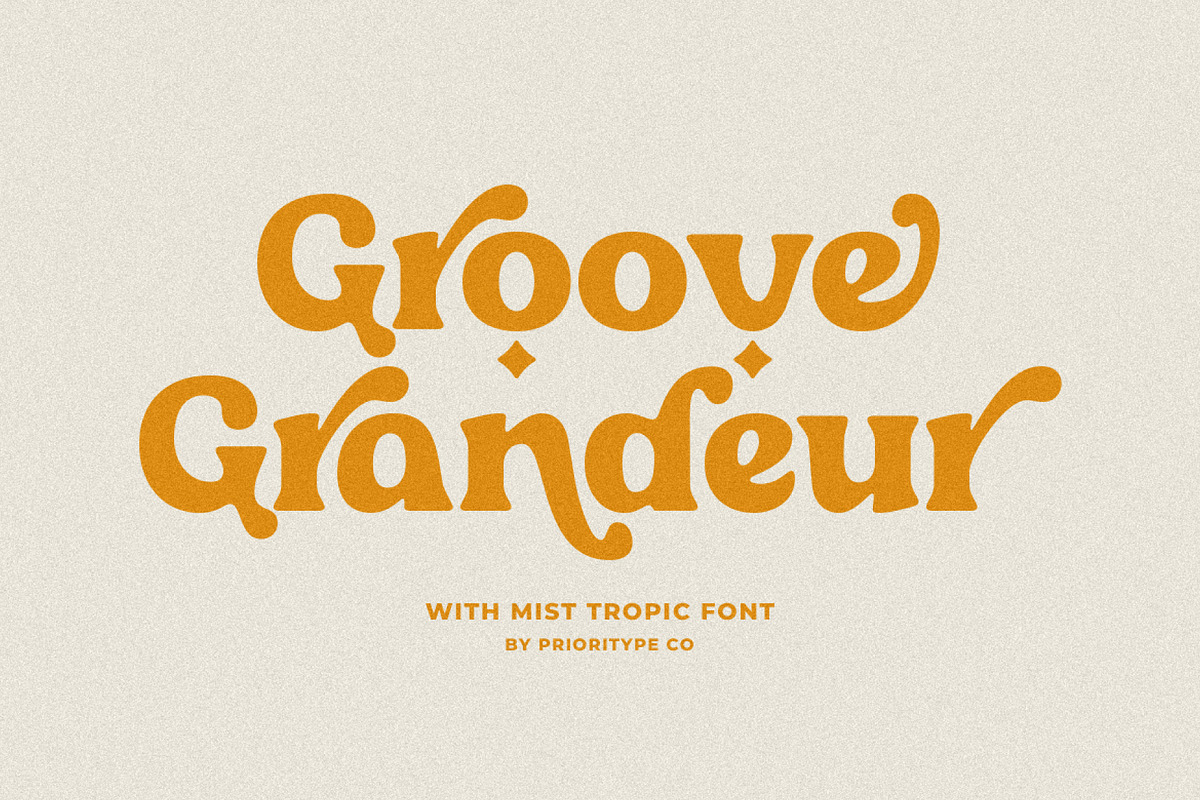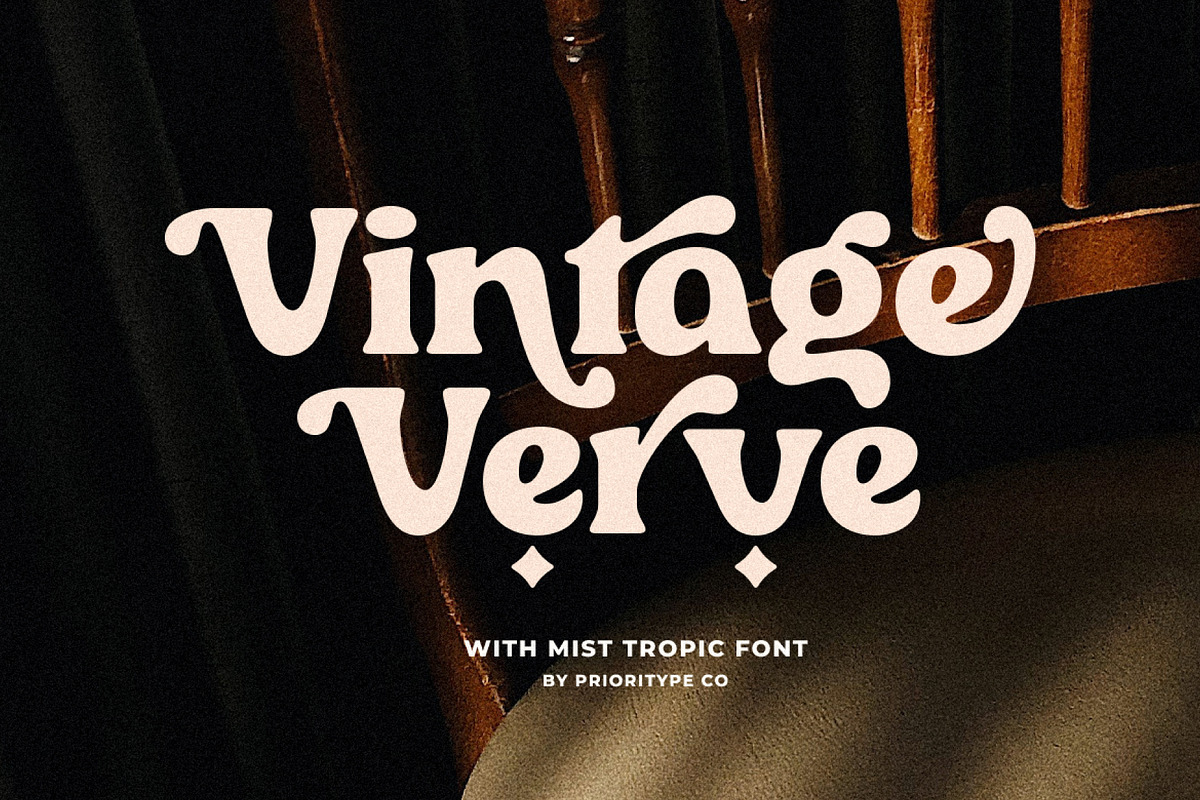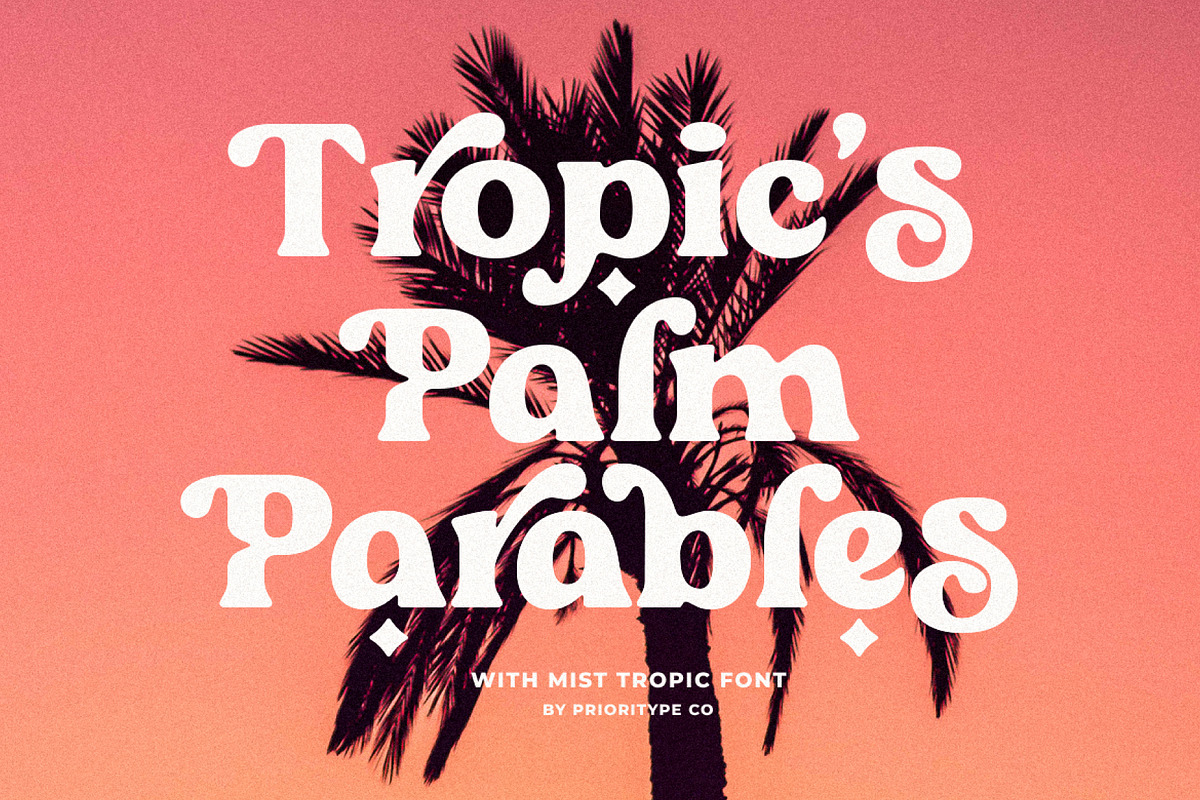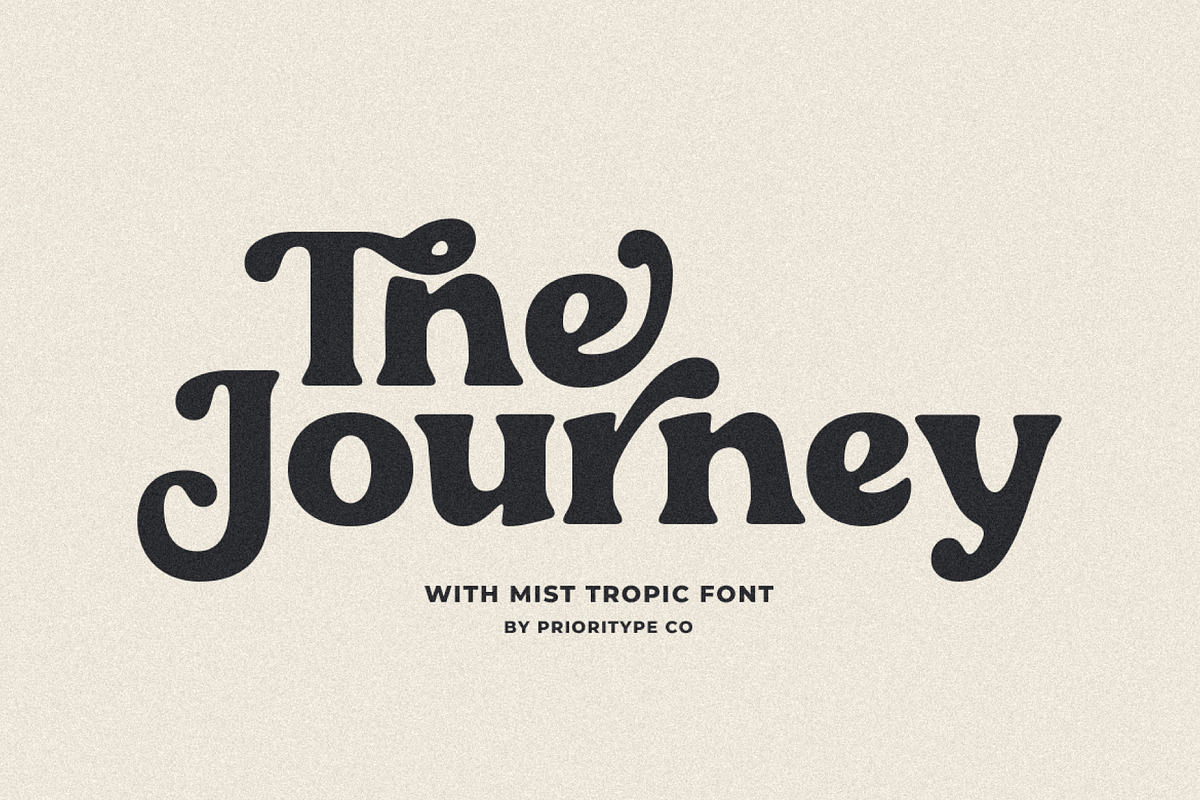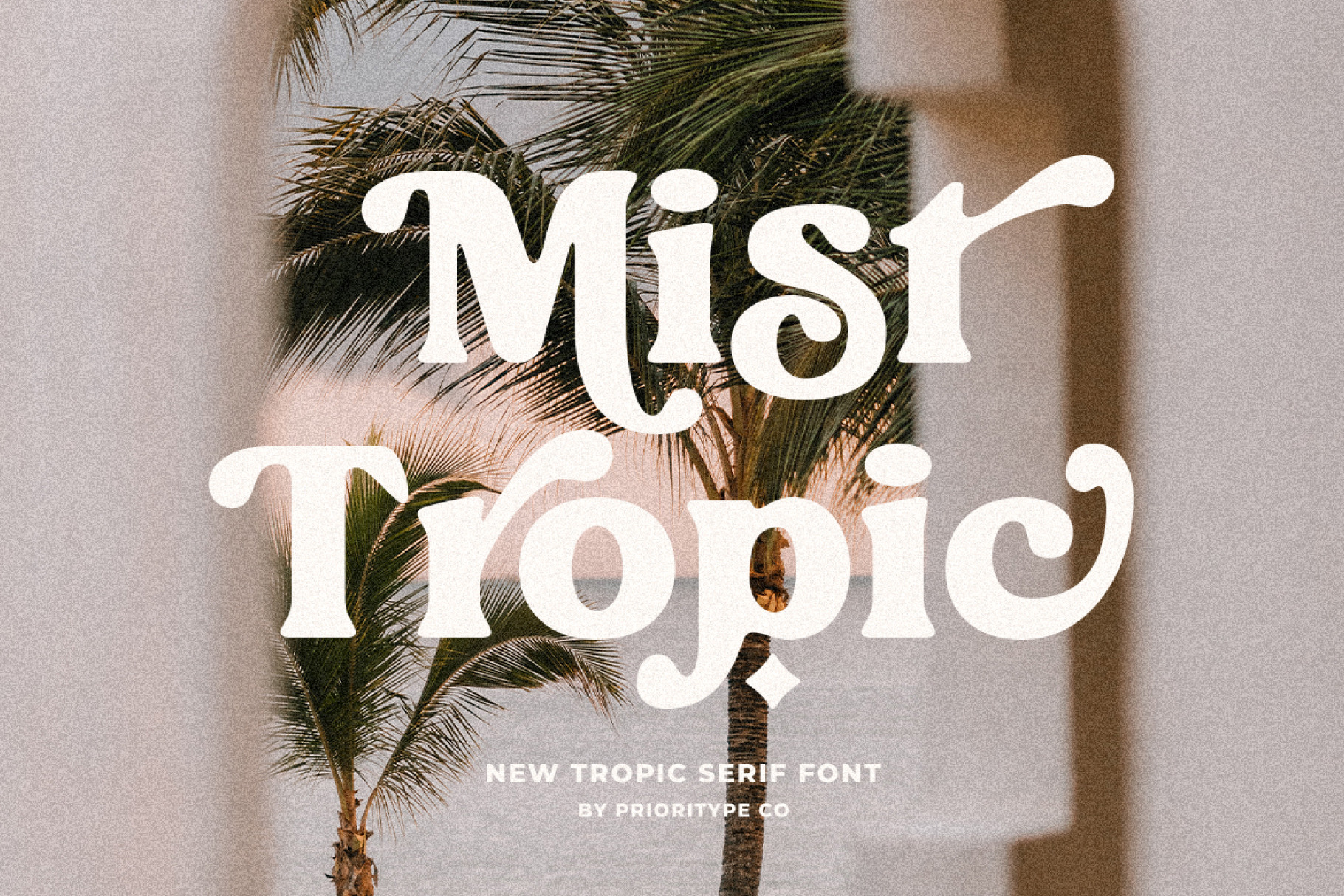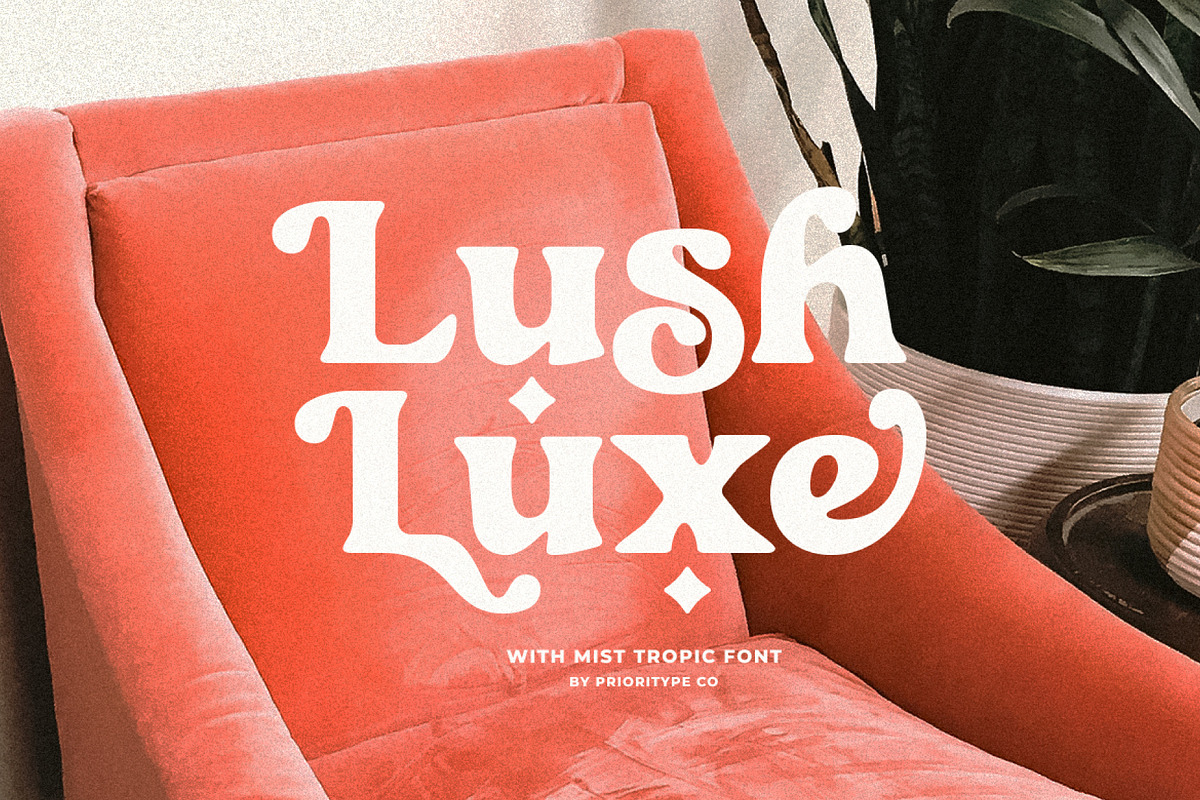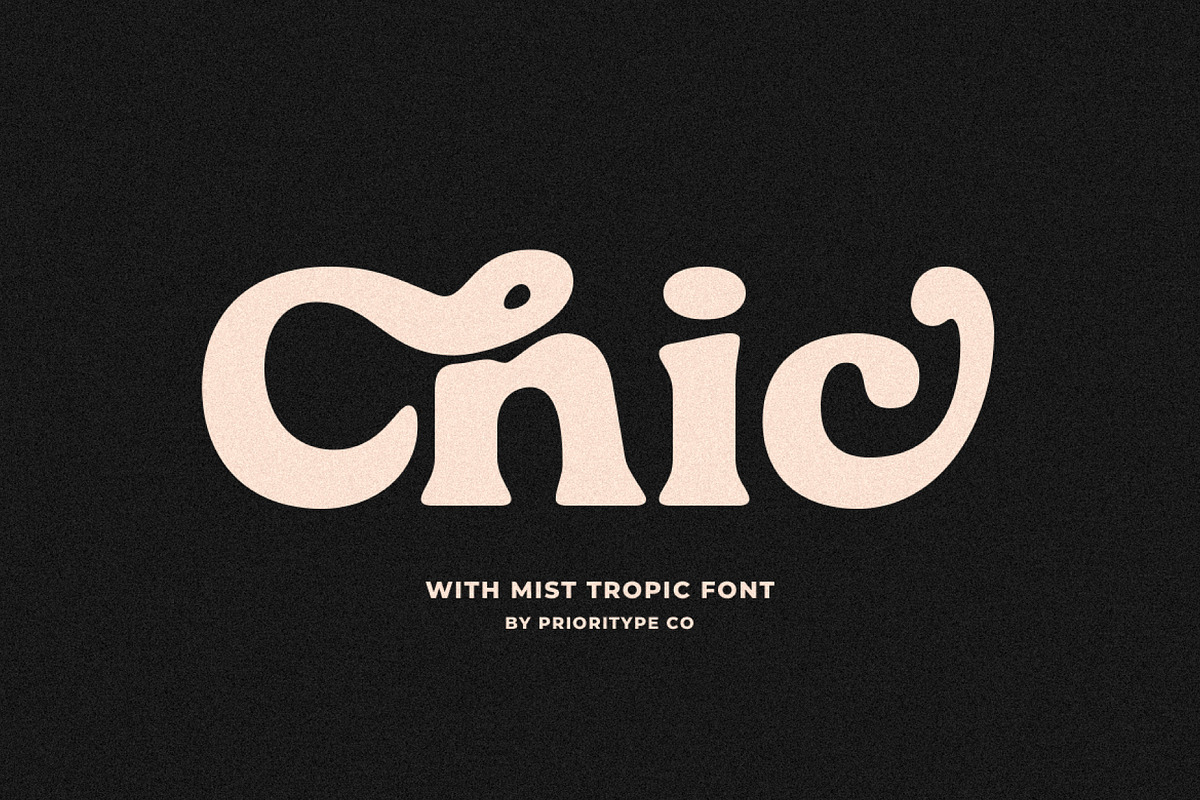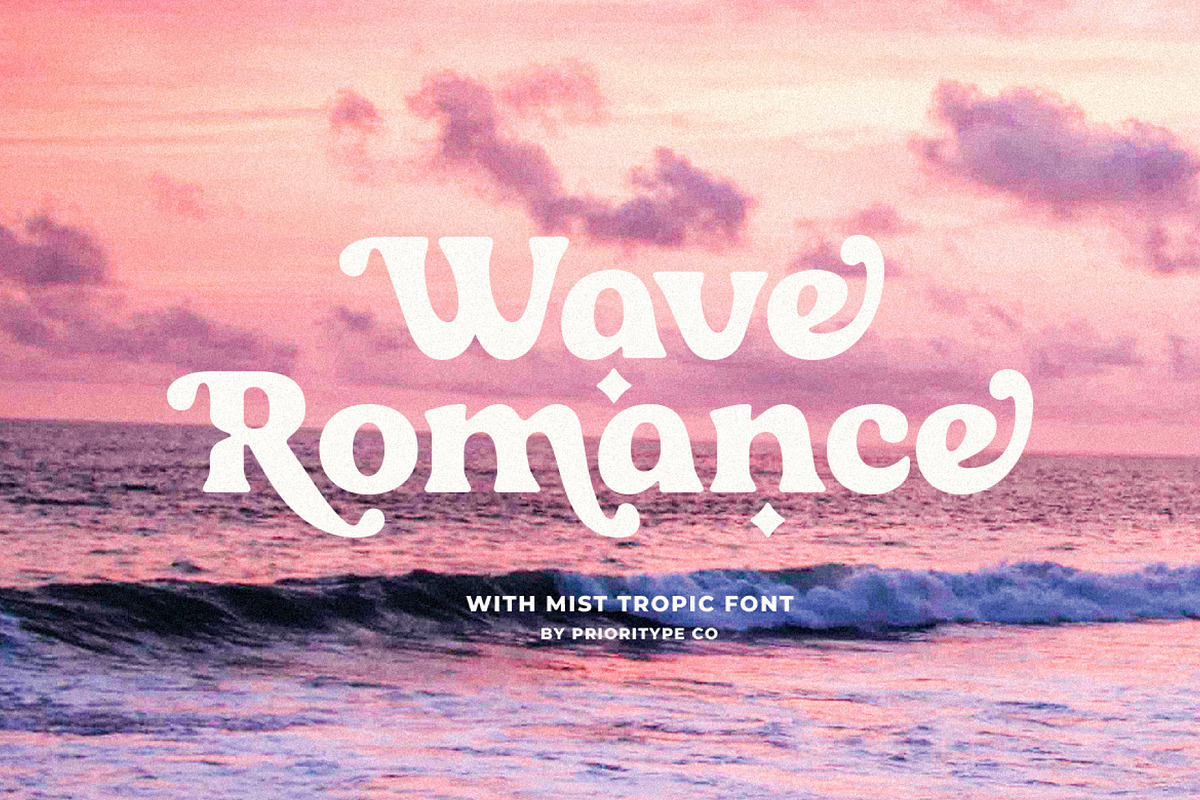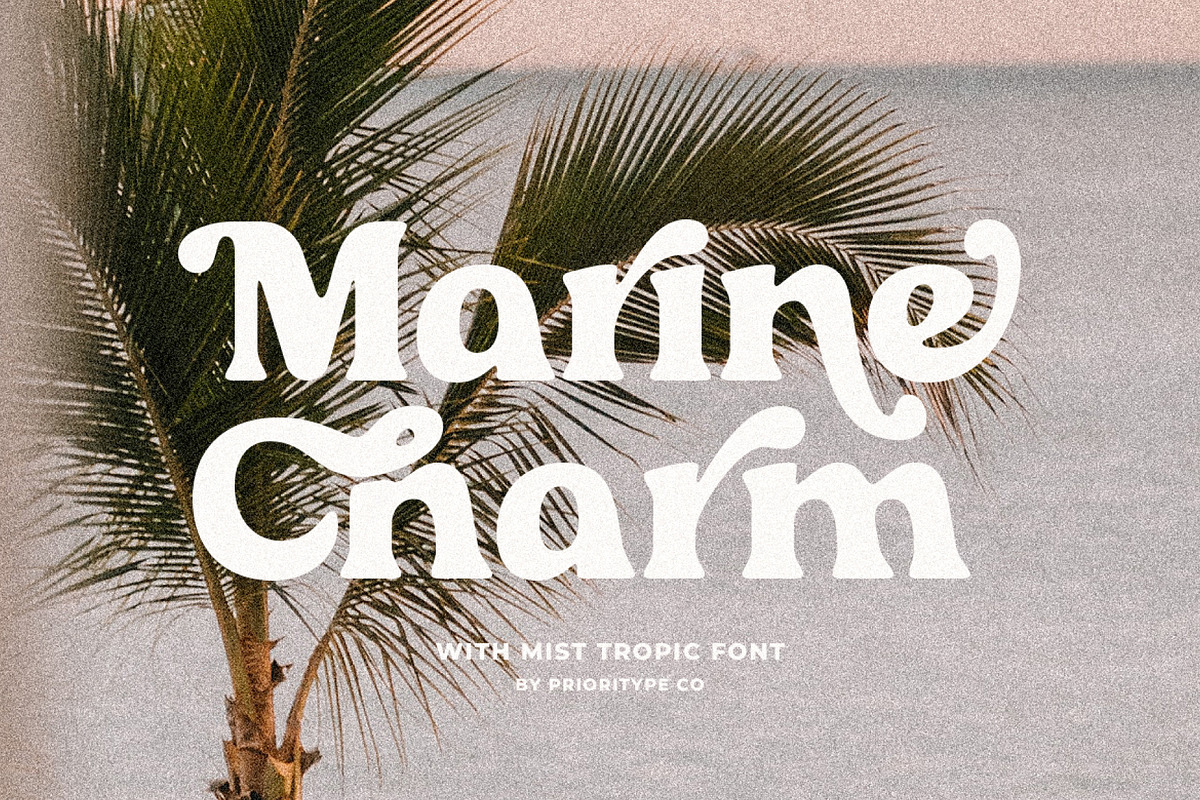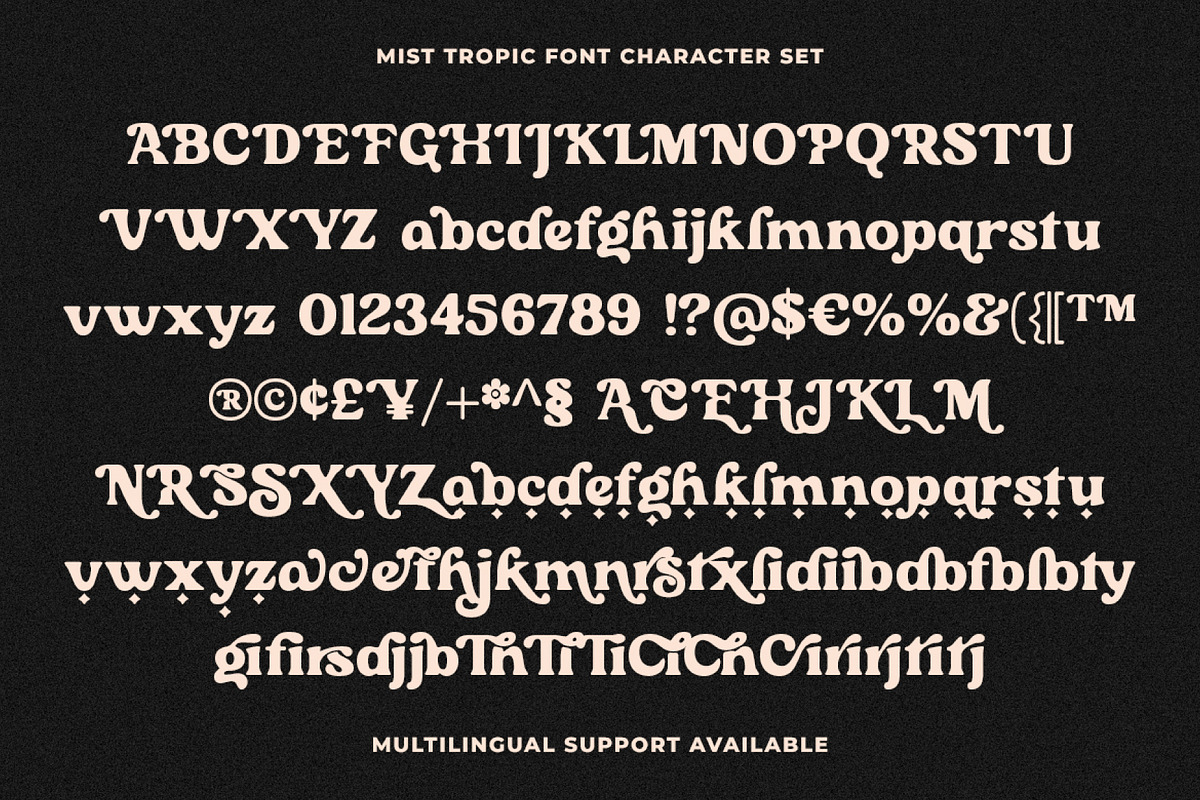
Mist Tropic - Tropic Serif Font
"Mist Tropic" blends groovy retro vibes with tropical coolness. This serif font elevates branding, logos, and merchandise with a timeless, vintage charm. Dive in, and let "Mist Tropic" transform your designs.
- Features: Uppercase, Lowercase, Numeral, Punctuation, Multilingual, Alternates & Ligatures.
- Multilingual contained: Afrikaans, Albanian, Asu, Basque, Bemba, Bena, Breton, Catalan, Chiga, Cornish, Danish, Dutch, English, Estonian, Filipino, Finnish, French, Friulian, Galician, German, Gusii, Indonesian, Irish, Italian, Kabuverdianu, Kalenjin, Kinyarwanda, Luo, Luxembourgish, Luyia, Machame, Makhuwa-Meetto, Makonde, Malagasy, Manx, Morisyen, North Ndebele, Norwegian Bokmål, Norwegian Nynorsk, Nyankole, Oromo, Portuguese, Quechua, Romansh, Rombo, Rundi, Rwa, Samburu, Sango, Sangu, Scottish Gaelic, Sena, Shambala, Shona, Soga, Somali, Spanish, Swahili, Swedish, Swiss German, Taita, Teso, Uzbek (Latin), Volapük, Vunjo, Zulu.